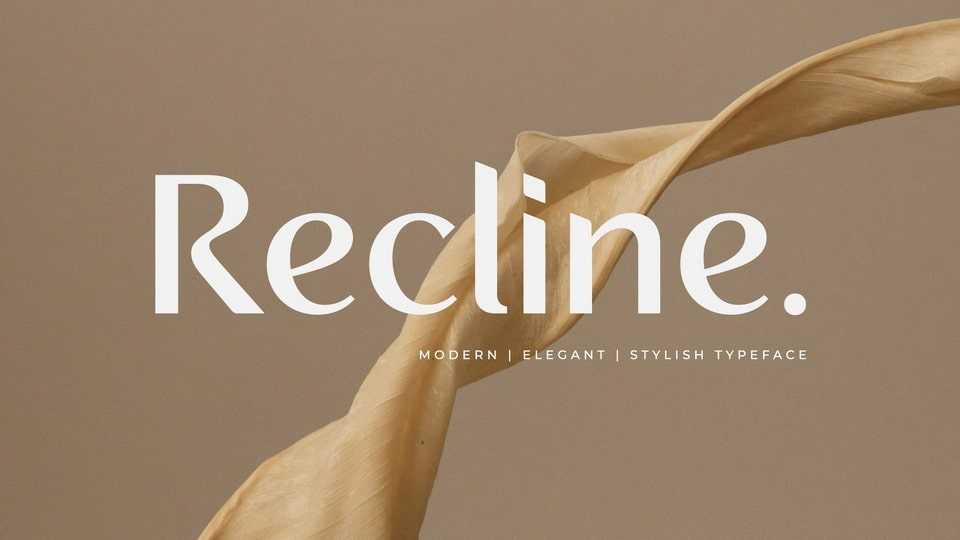
Download Recline font, an elegant serif typeface that looks modern and stylish. Recline is perfect for corporate identities, websites, publishing, titles, books, magazines, business cards, logos, product labels, packaging, or any kind of advertising purpose.
Designer: Digitype Studio